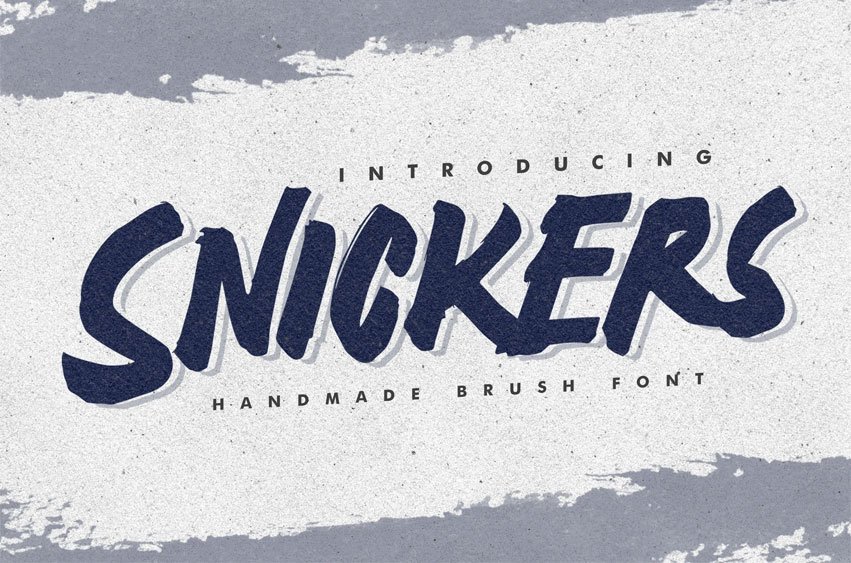
Snickers Font
Snickers Font is perfect to use for Logotype, Letterhead, Poster, Apparel Design, Label and etc. The alternative characters were divided into several features such as Stylistic Alternates and Ligature.
• All Alternates
• Standard Ligatures